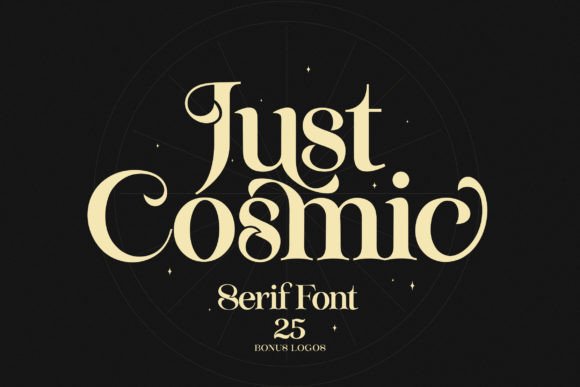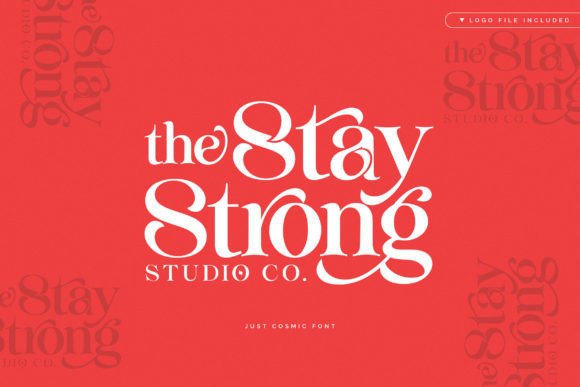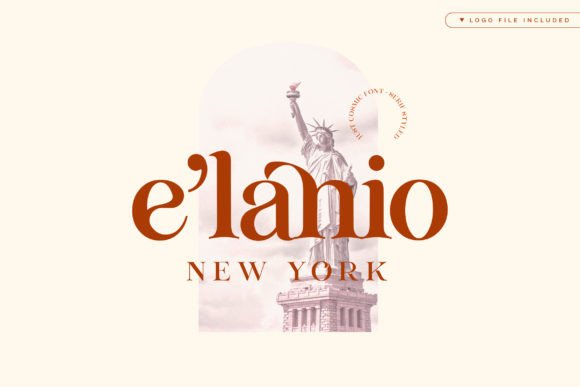
Just Cosmic Font: Elegant Serif with Ligatures for Logo Design & Branding
About the Just Cosmic Font
Elevate your designs with Just Cosmic Font, a font that combines sophistication with readability. Just Cosmic is a modern vintage serif font will stylistic alternates and beautiful cutout ligatures. This font pack also contains 25 pre-made logos. Just Cosmic is magical in every way. With unique, elegant alternates and ligatures, the font will be your best choice for both text and display type. Just Cosmic is designed to fill the text gaps between serif text lines.
Its modern vintage style with elegant alternates makes Just Cosmic ideal for headlines, logos, and short-form text on packaging or posters. The unique ligatures add a touch of sophistication, perfect for branding projects requiring a touch of vintage charm. However, its decorative nature makes it less suitable for body text or UI elements where readability is paramount; long paragraphs would be difficult to read.
Just Cosmic possesses a bold yet elegant personality. To complement this, consider pairing it with a clean sans-serif like Montserrat for body text, or a playful script font like Great Vibes for secondary text elements needing a more informal feel. A geometric sans-serif such as Futura would also create a strong contrast, highlighting Just Cosmic’s vintage character.
For projects emphasizing a retro-modern aesthetic, brands with a focus on craftsmanship or luxury goods, or designs needing a touch of vintage flair, Just Cosmic will be a strong choice.